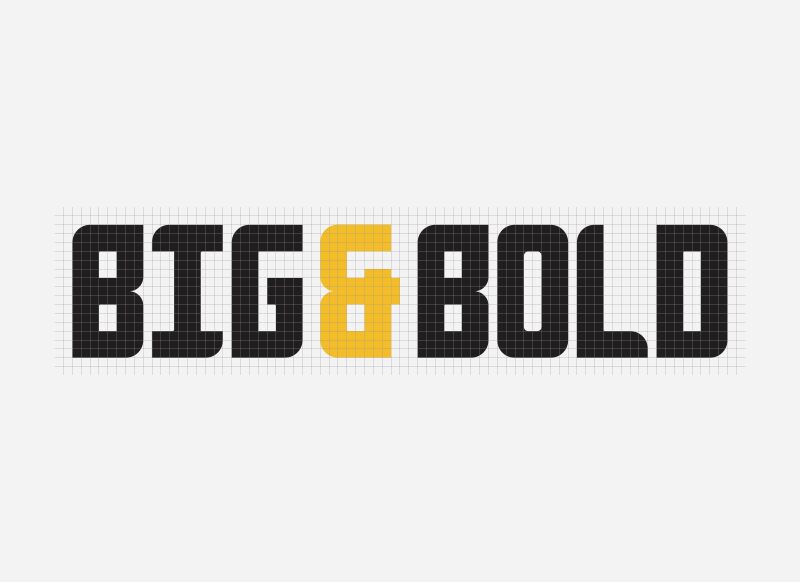
Anvyl Outline font by Matt Wilson is a bold, condensed display typeface characterized by its outlined geometric structure. It combines sharp corners and soft curves to achieve an industrial yet friendly look. The font showcases a modern aesthetic with retro influences, creating a high visual impact perfect for captivating your audience.
Free and versatile, Anvyl Outline is ideal for posters, headlines, logos, branding materials, packaging design, album covers, apparel designs, social media graphics, signage projects, typographic art pieces along with many other design applications calling for bold typography.
Based on Anvyl by Matt Cole Wilson & Dmitry Sivukhin. Modified by Mironenko Nikolay. 2025 FontLab-8